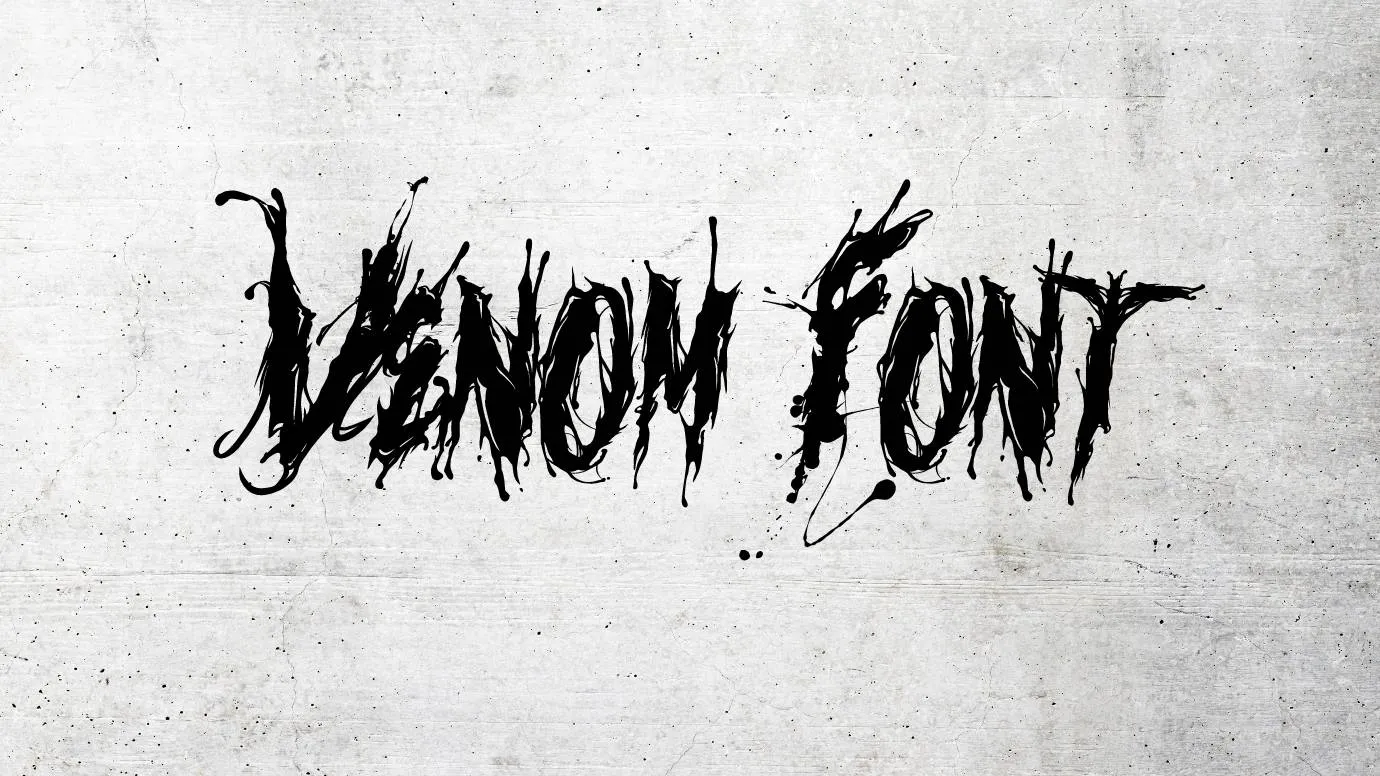
Venom Font Free Download
Venom Font Family is a good-quality font that comes in a brush font family. This beautiful typeface was designed and shared by fluffyartstudio which is a brilliant font studio. It comes in 74 characters along with uppercase and lowercase characters.
Venom Font